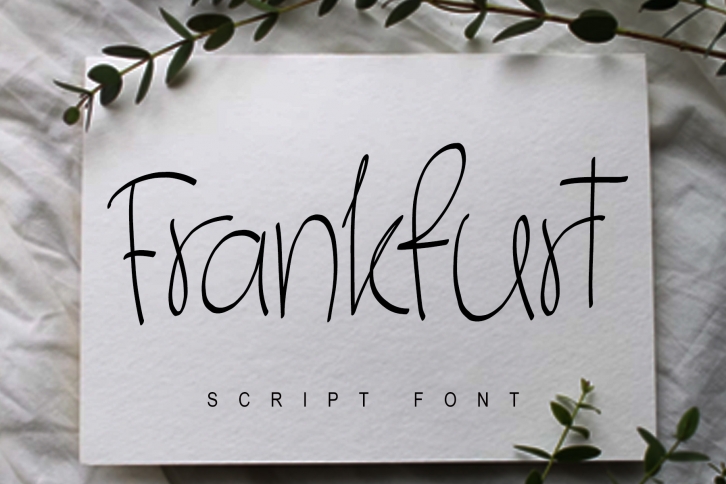
Frankfurt is simple handwritten font. It is the best choice for creating eye-catching logos, branding and quotes. Its balanced and varied, this font was designed to enhance the beauty of your idea. Enjoy!